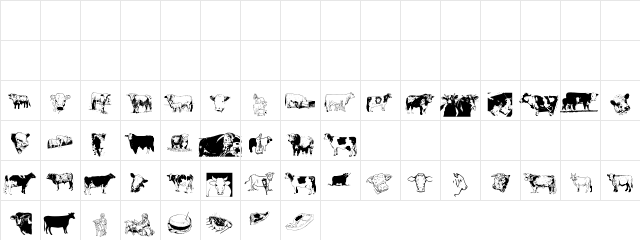
AnimalsAnimalsBovine Regular Font Preview
AnimalsAnimalsBovine Regular
Design Context for AnimalsAnimalsBovine Typeface
AnimalsAnimalsBovine is a composed and adaptable typeface that performs quietly and consistently across a wide range of design contexts.